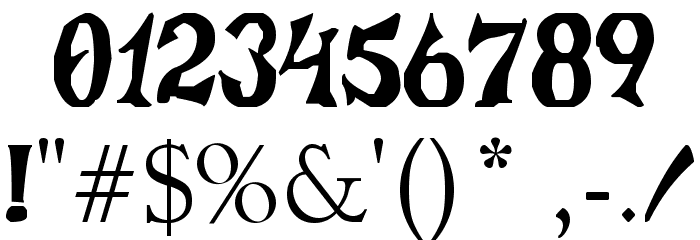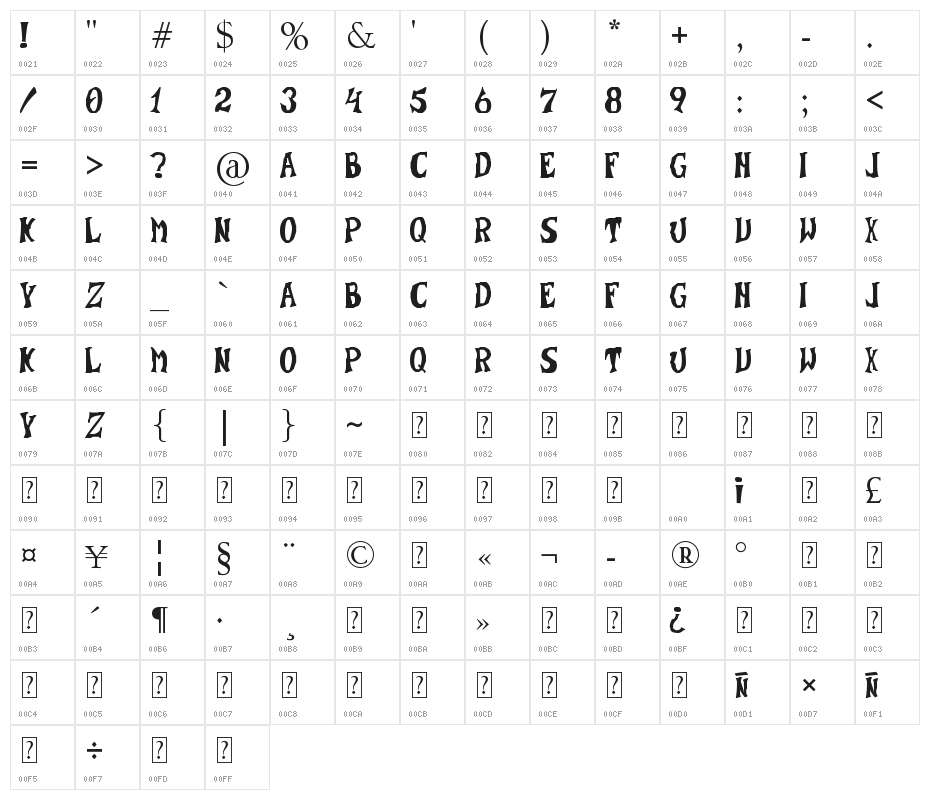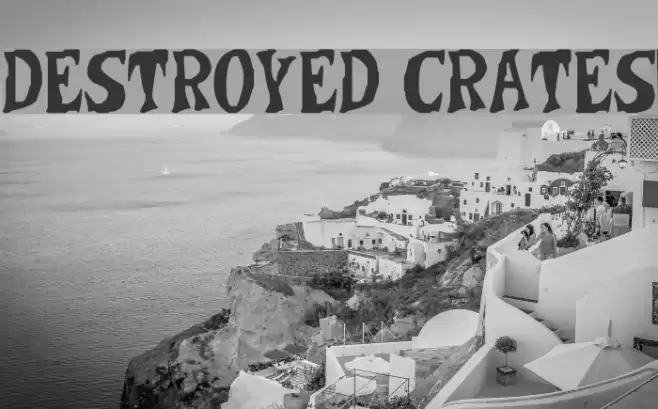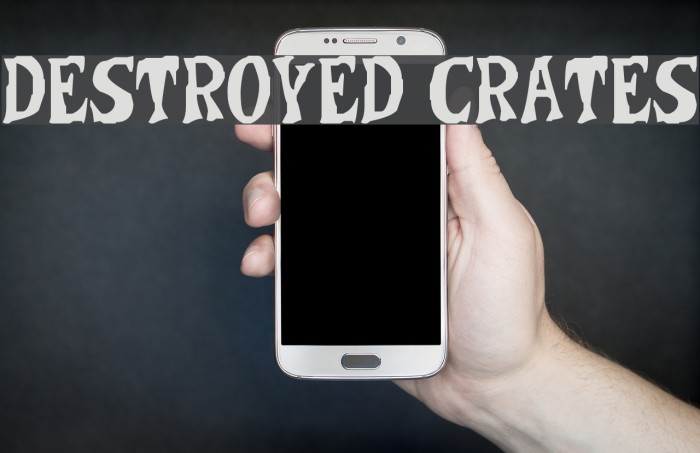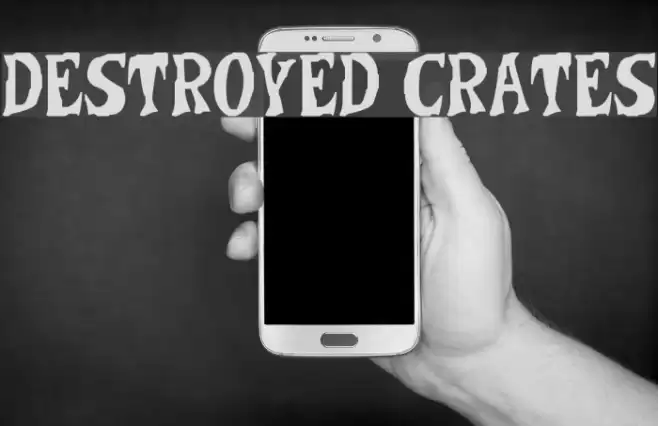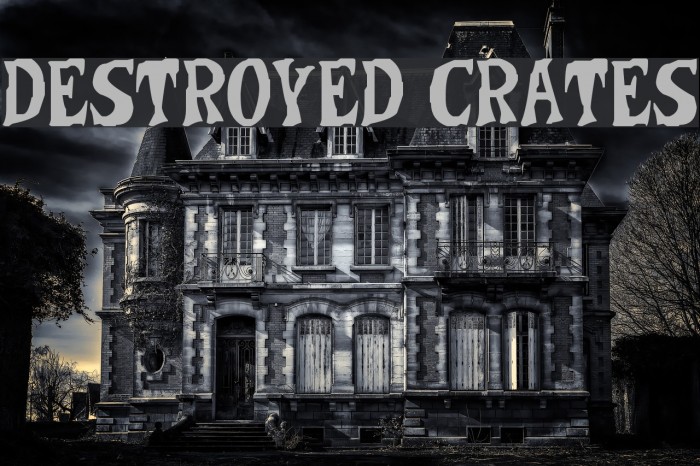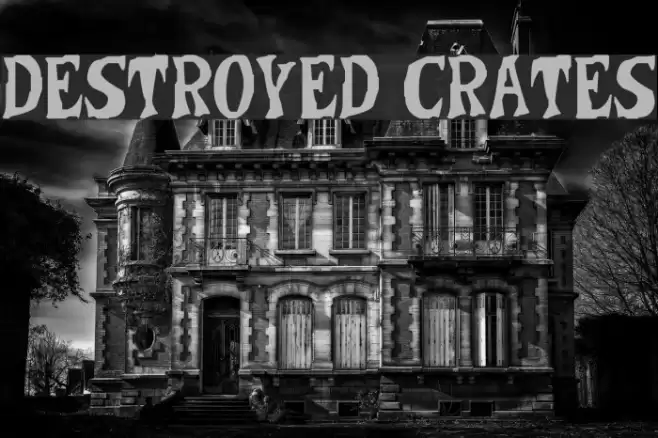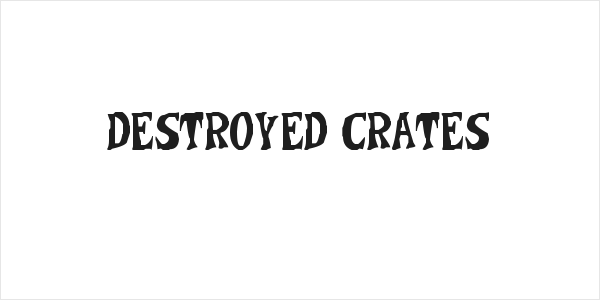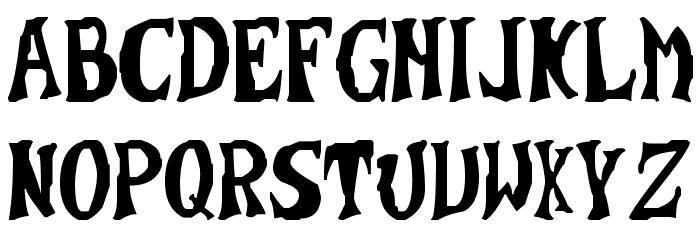
Destroyed Crates Font
Destroyed Crates Description
This font features a bold and rugged design with a distressed, hand-crafted appearance. The characters have a jagged, uneven edge, giving them a worn and weathered look. The uppercase and lowercase letters maintain a consistent style, with exaggerated serifs and a slightly condensed form. Numbers and special characters follow the same aesthetic, ensuring a cohesive look across all glyphs. The font's unique style makes it stand out, ideal for projects that require a strong, impactful visual presence.